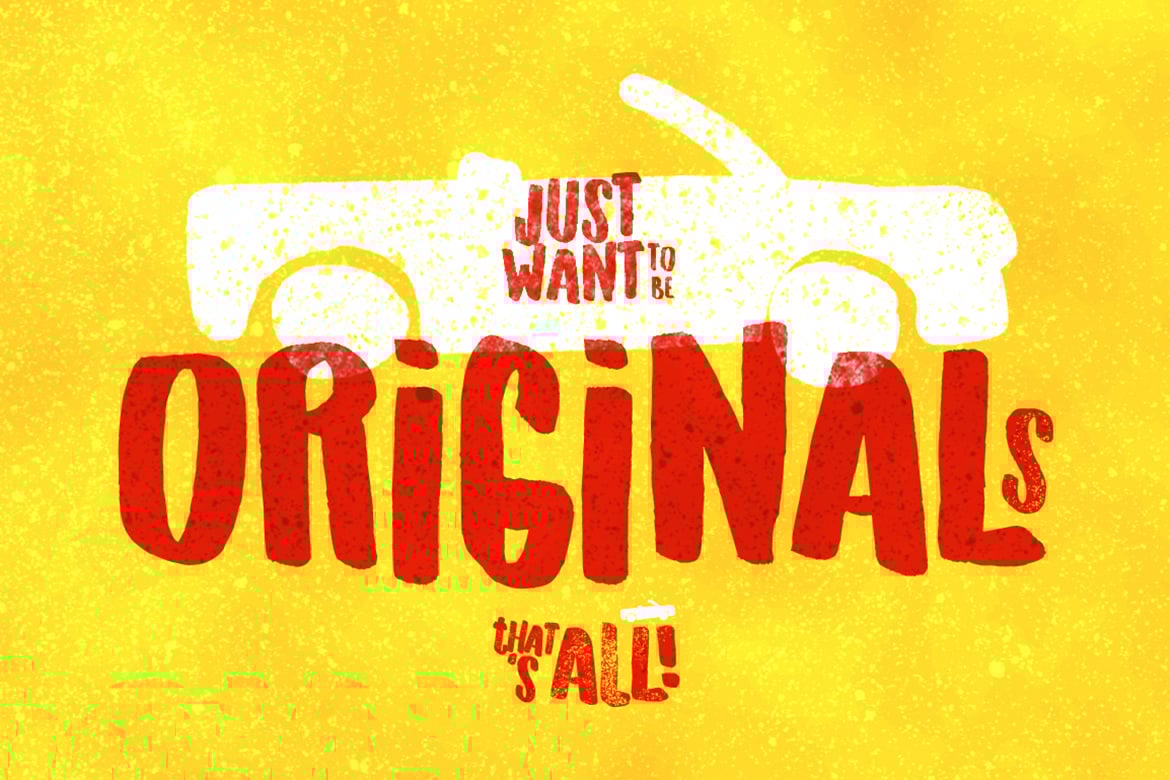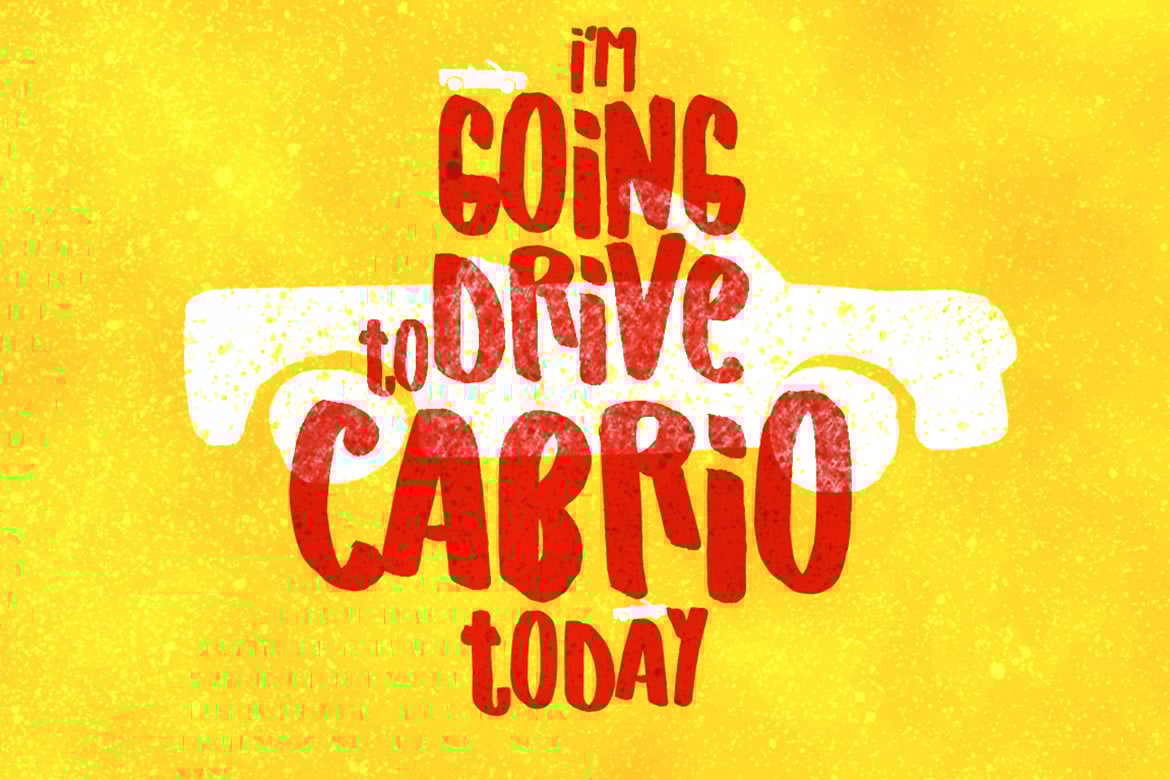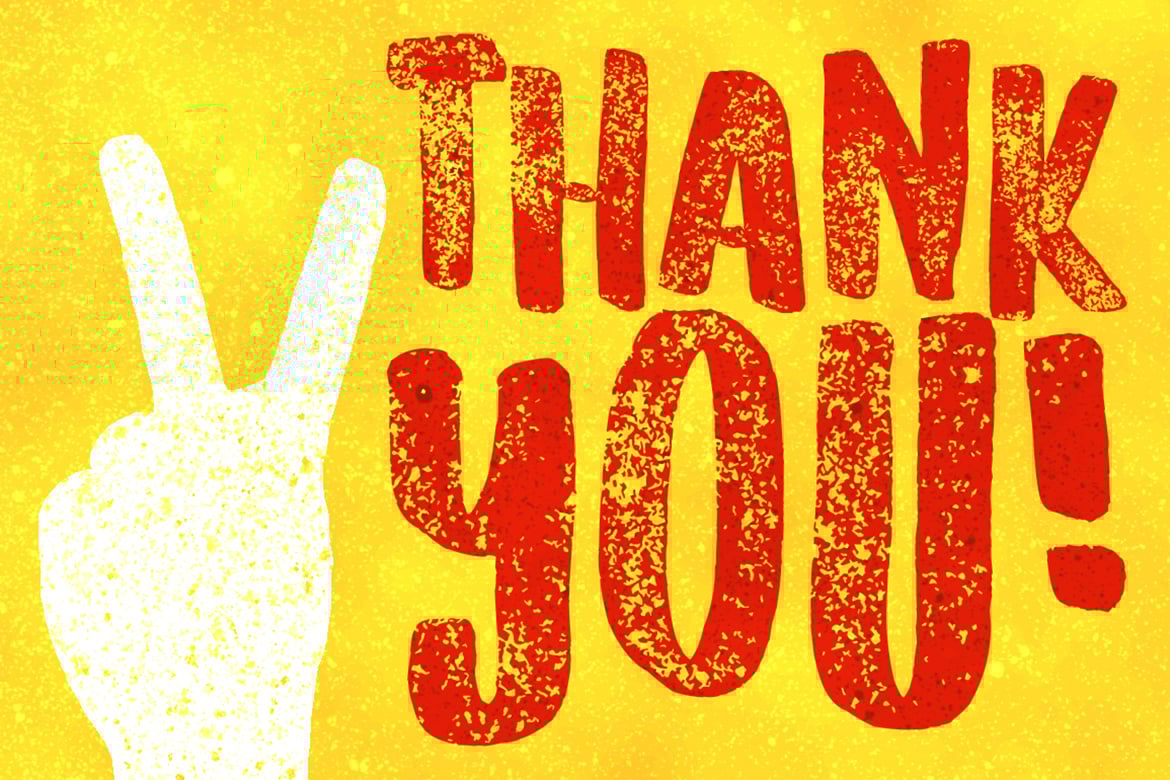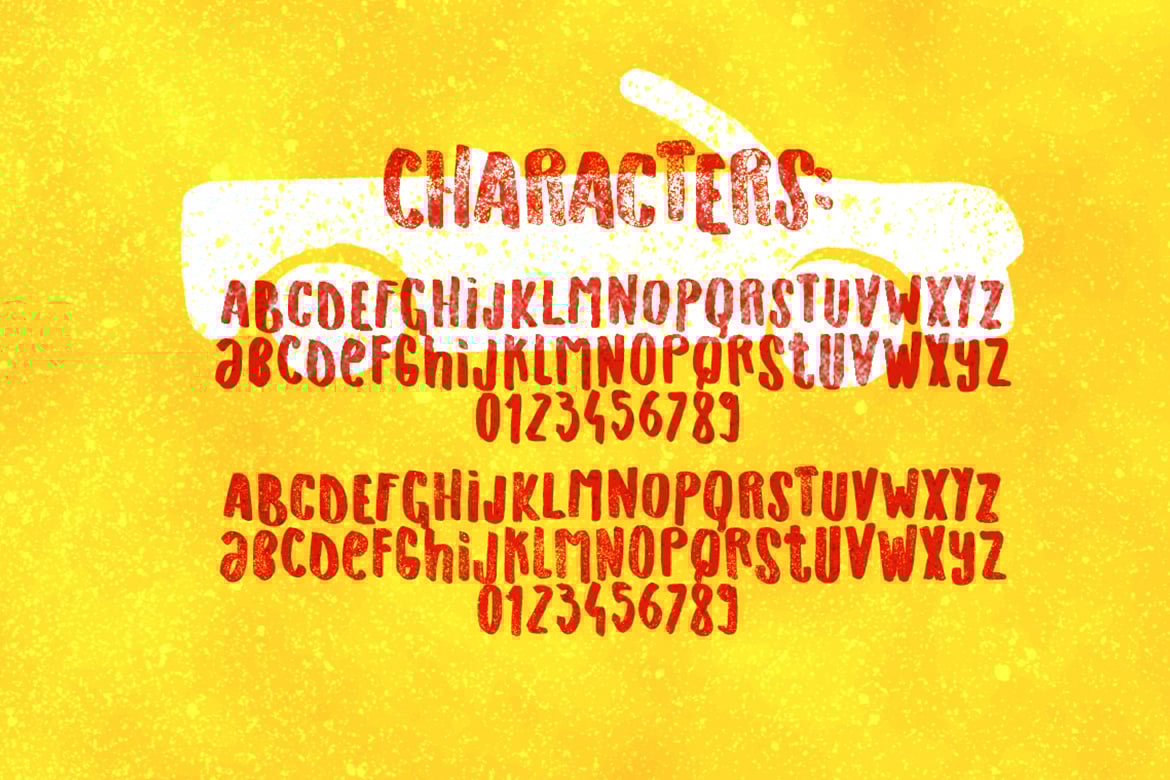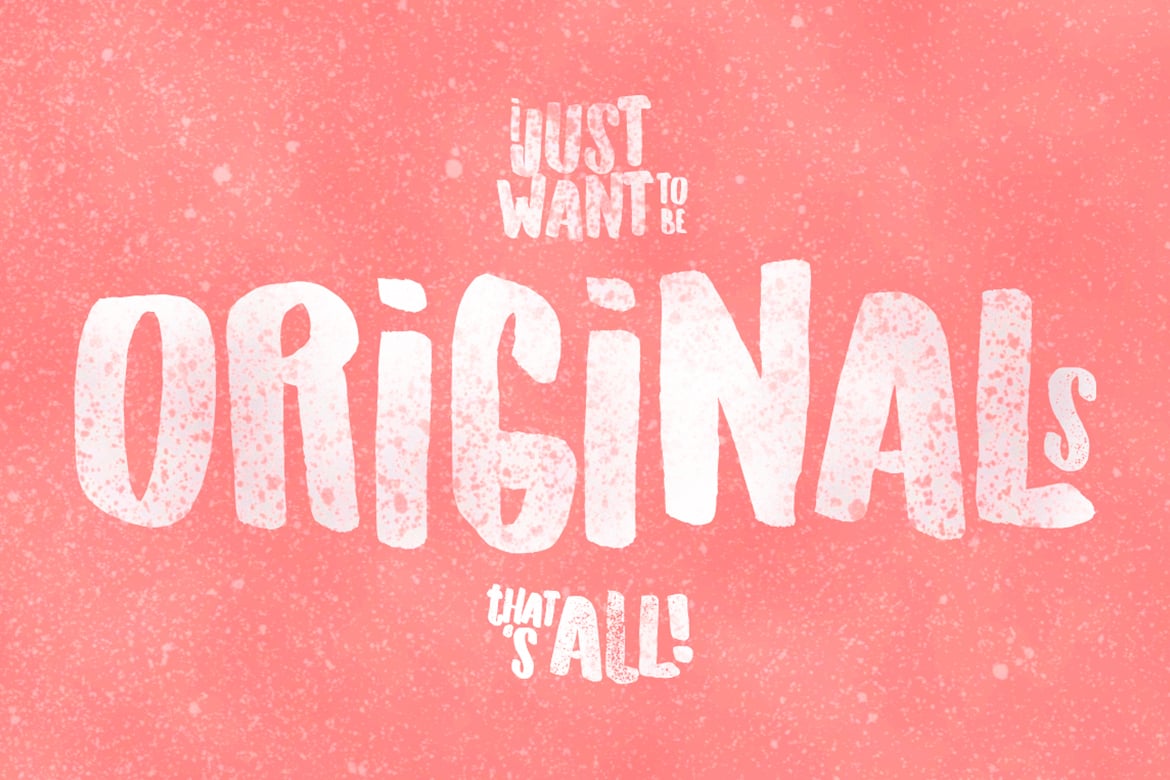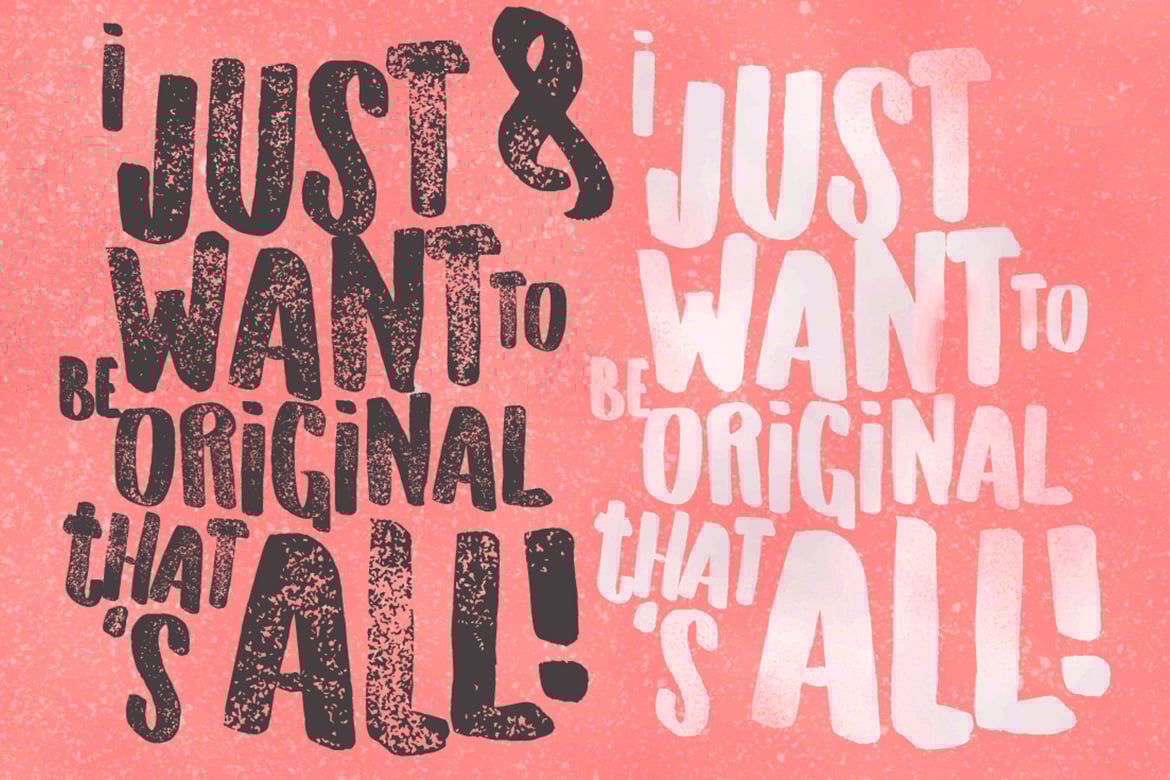
Originals Typeface
Originals Typeface is a handdrawn playful display font.
The font can be used for many purposes but looks great when put on signs, shirts or cards. Also, it works perfect on fresh summer theme designs.